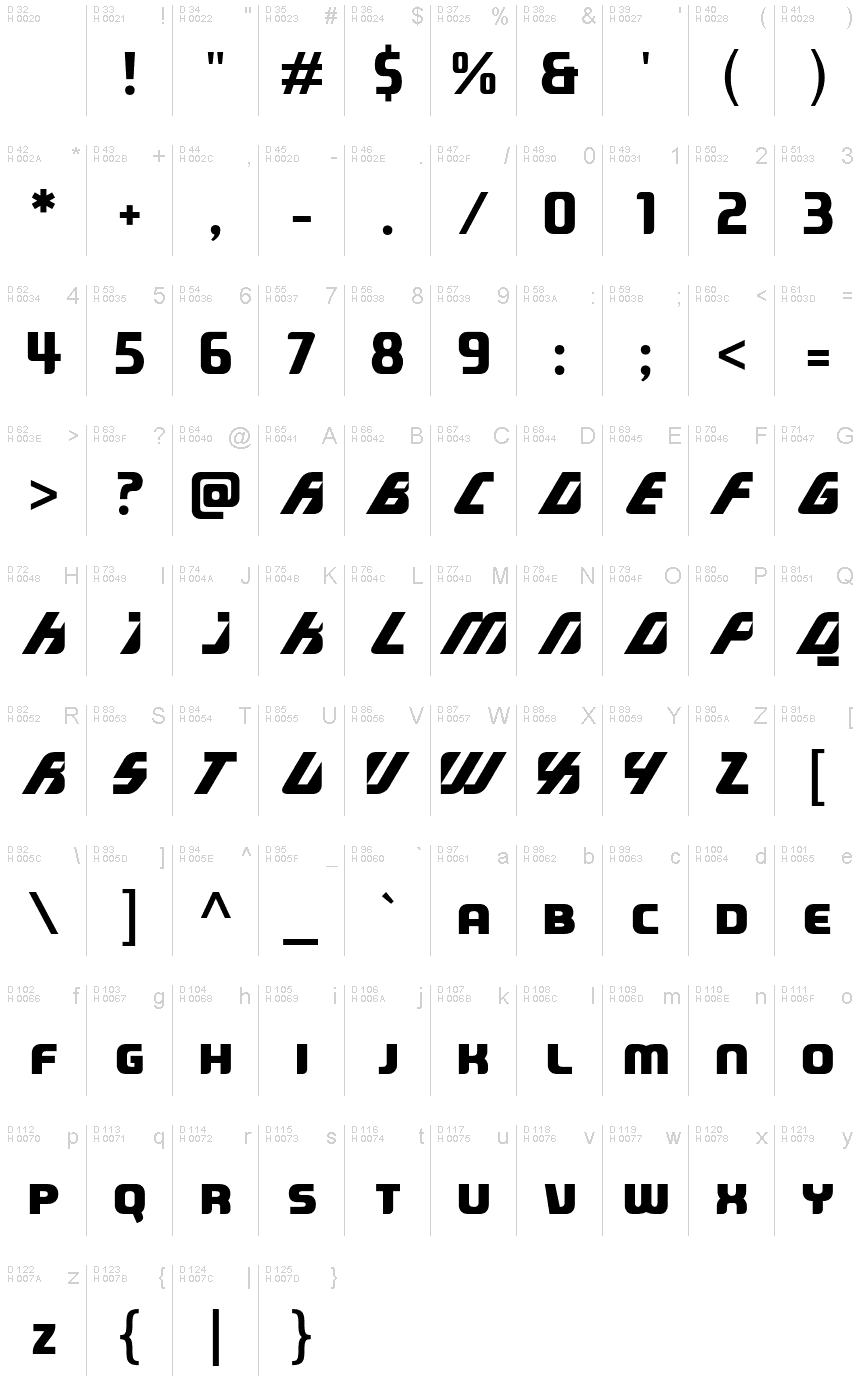
Muzino-Regular
Muzino is a bold and striking display font by Drizy Studio. With its techno-inspired style and sleek design, it's perfect for high-tech projects, such as software interfaces, gaming, and futuristic marketing campaigns. Stand out from the crowd with the cutting-edge style of Muzino.